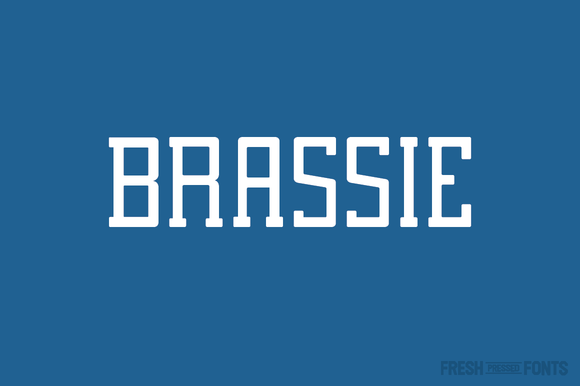
Introducing Brassie Family Font - The Winning Stroke for Your Design Game
In the world of typography, where letters dance and words take flight, meet Brassie Family Font, a slab serif typeface that's not just another font; it's a game-changer. Inspired by the dynamic world of sports, Brassie brings a touch of athleticism and finesse to your designs, making them soar like a perfectly executed tee shot.
With its geometric base and subtly rounded edges, Brassie is as smooth as a buttery wedge shot on the 18th hole. Its carefully crafted curves and sharp angles create a visual rhythm that captivates the eye and keeps it moving, just like the mesmerizing swing of a golf club.
The Brassie Family Font is a versatile champion, adapting seamlessly to a wide range of design challenges. Whether you're crafting logos that demand attention, headlines that command respect, or body text that flows effortlessly, Brassie is your go-to player. Its diverse weight options, from the airy Brassie Light to the powerful Brassie Bold, ensure that you always have the perfect tool for the job.
Brassie Light is the nimble sprinter of the family, adding a touch of elegance and finesse to your designs. It's ideal for crafting delicate logos, subtle headlines, and body text that feels like a gentle breeze on a summer's day.
Brassie Regular is the steady all-rounder, the dependable workhorse that handles any design task with grace and precision. Its balanced proportions and clear legibility make it perfect for headlines that demand attention, body text that invites exploration, and designs that aim for timeless appeal.
Brassie Bold is the powerhouse of the family, a bold and confident font that commands attention like a thunderous roar. Its thick strokes and strong presence make it ideal for creating impactful logos, striking headlines, and designs that demand to be seen and heard.
With Brassie Family Font, your designs will become a symphony of visual delight, captivating audiences and leaving a lasting impression. It's the perfect choice for designers seeking a font that's both versatile and visually stunning, a font that elevates their work beyond the ordinary and into the realm of the extraordinary.